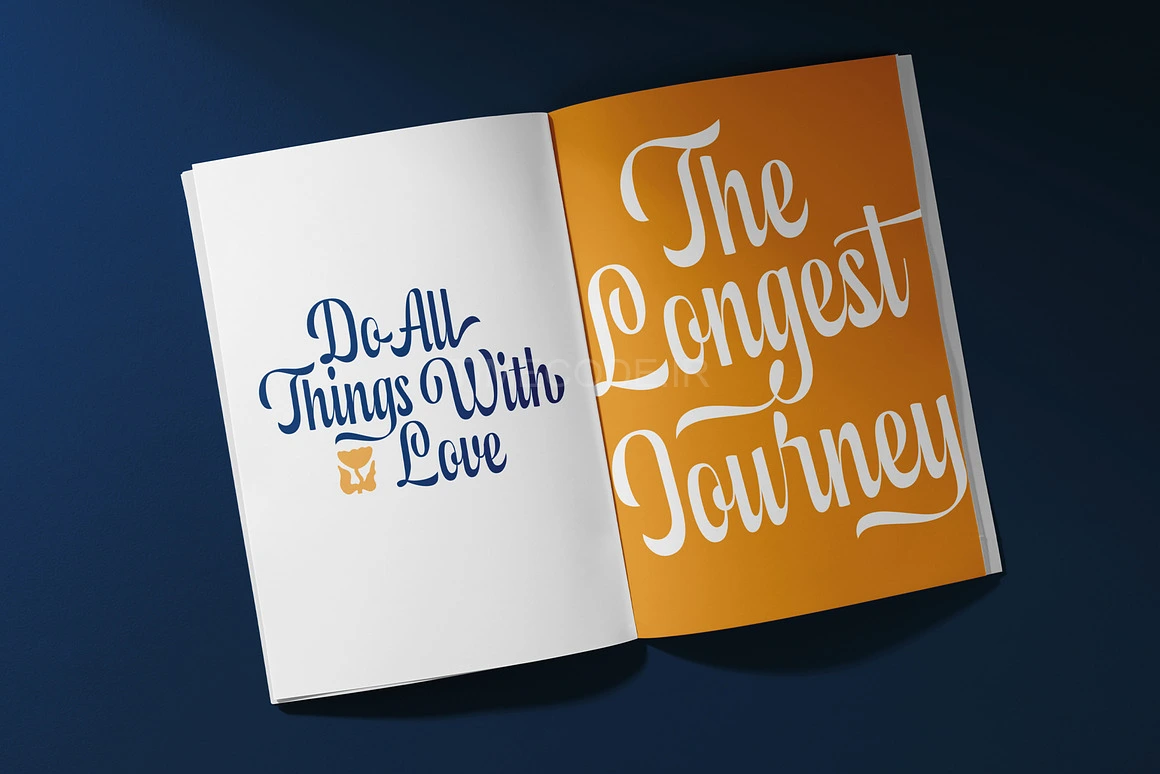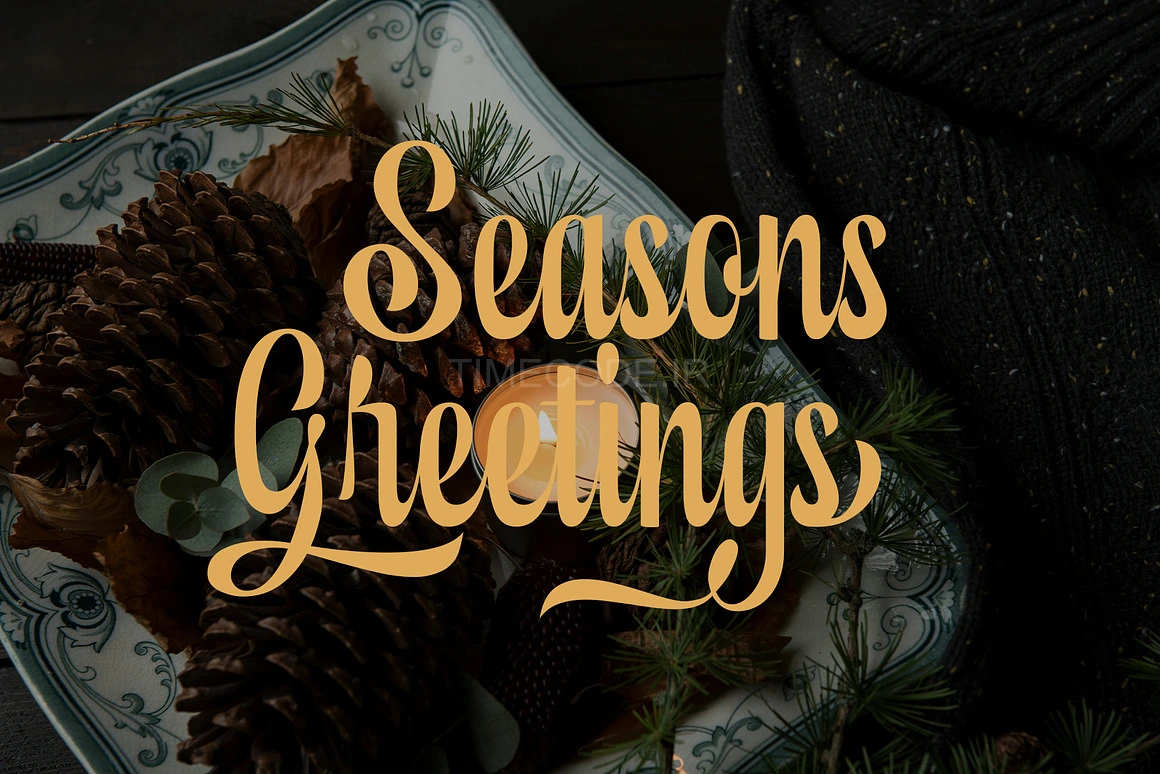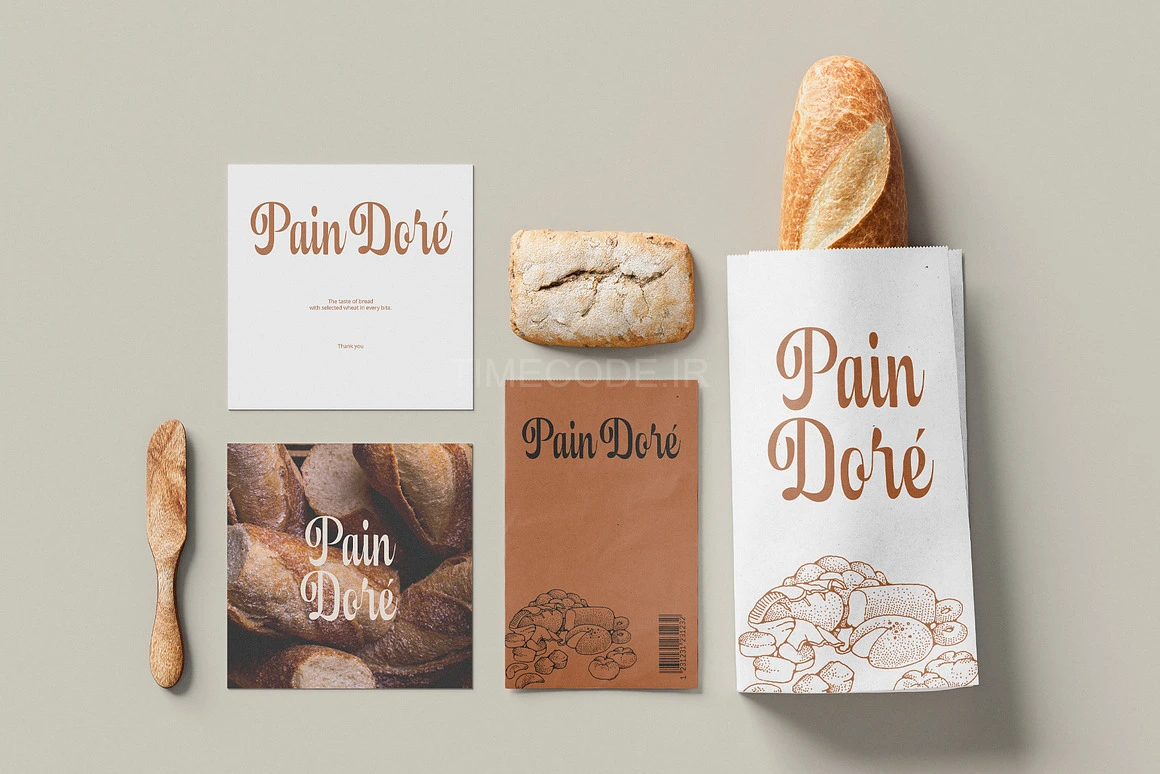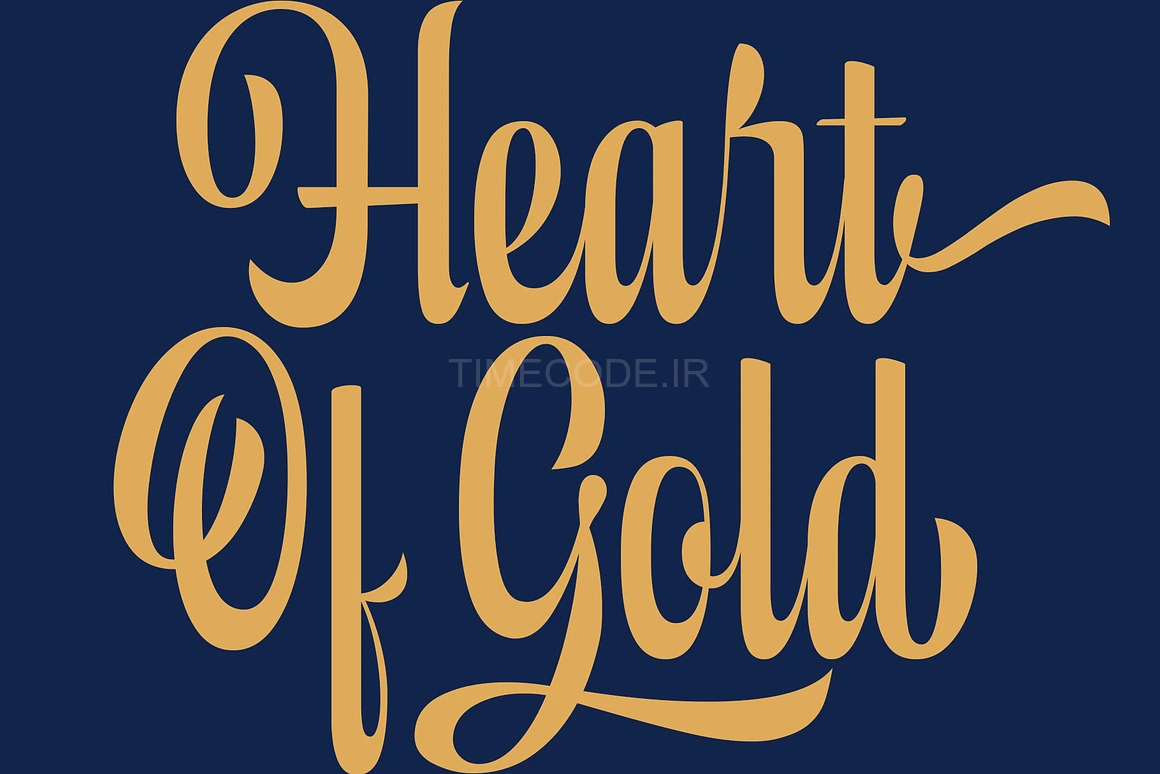
Fenelton is a script font that combines casual and elegant impressions. Equipped with OpenType features such as Stylistic Set ( 180+), and Ligature, and also multi-language support, it allows you to create a variety of interesting writing displays according to your design needs with this font.
This font is perfect for your creative projects such as Logotype, printed quotes, invitations, cards, product packaging, headers, Letterhead, Apparel, Web design, Magazine, Book, etc.
- 180+ stylistic set & Ligatures